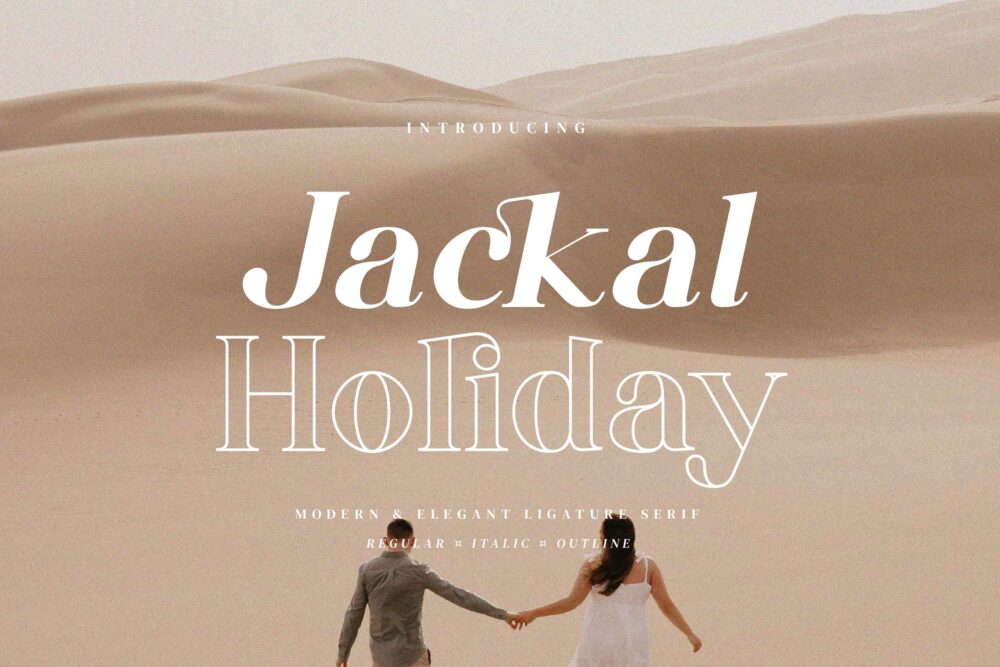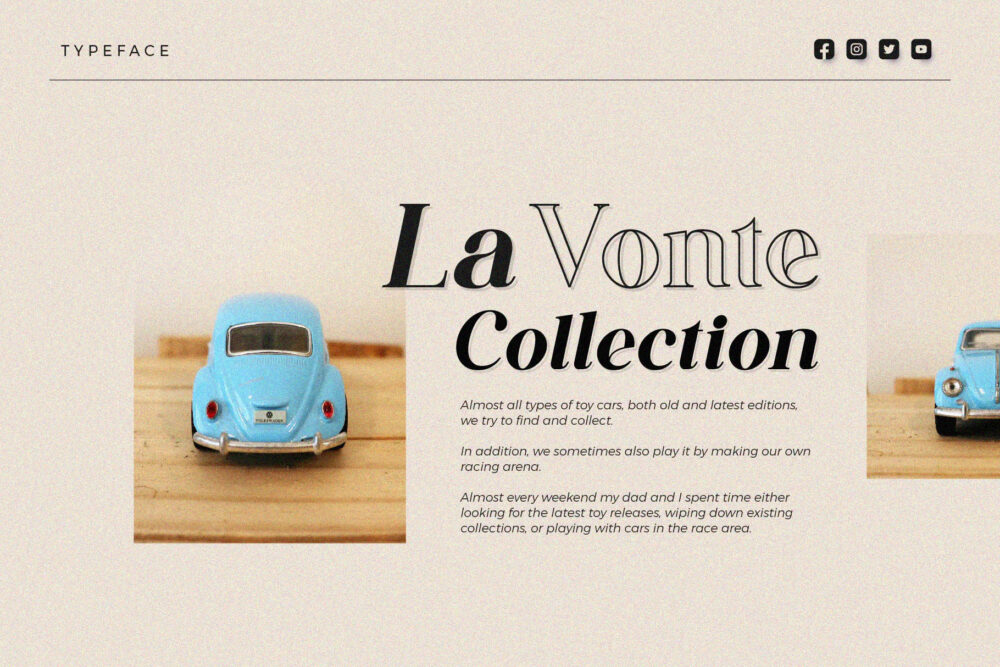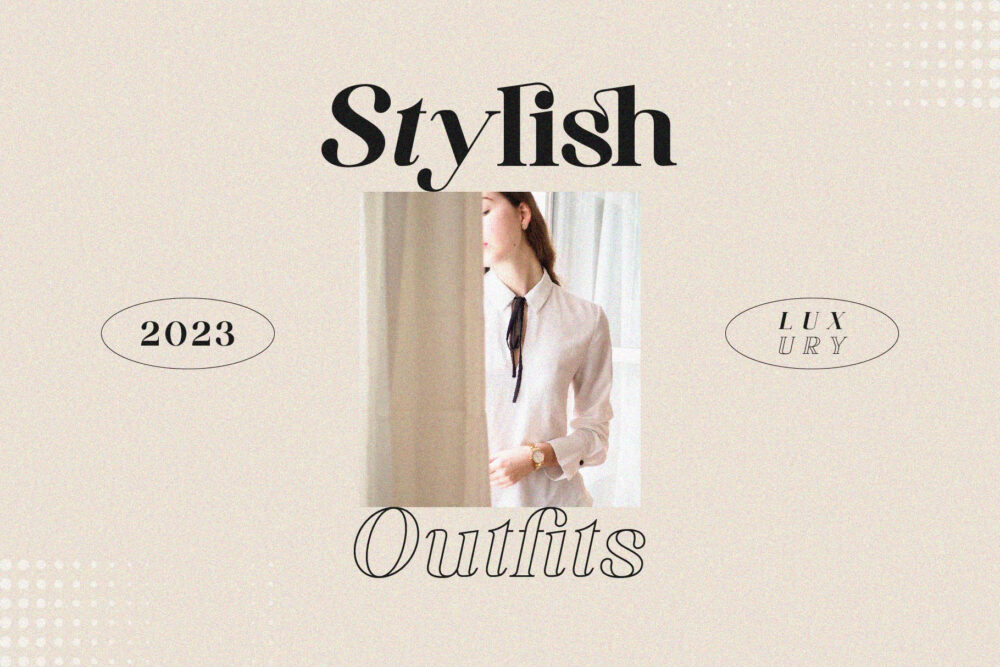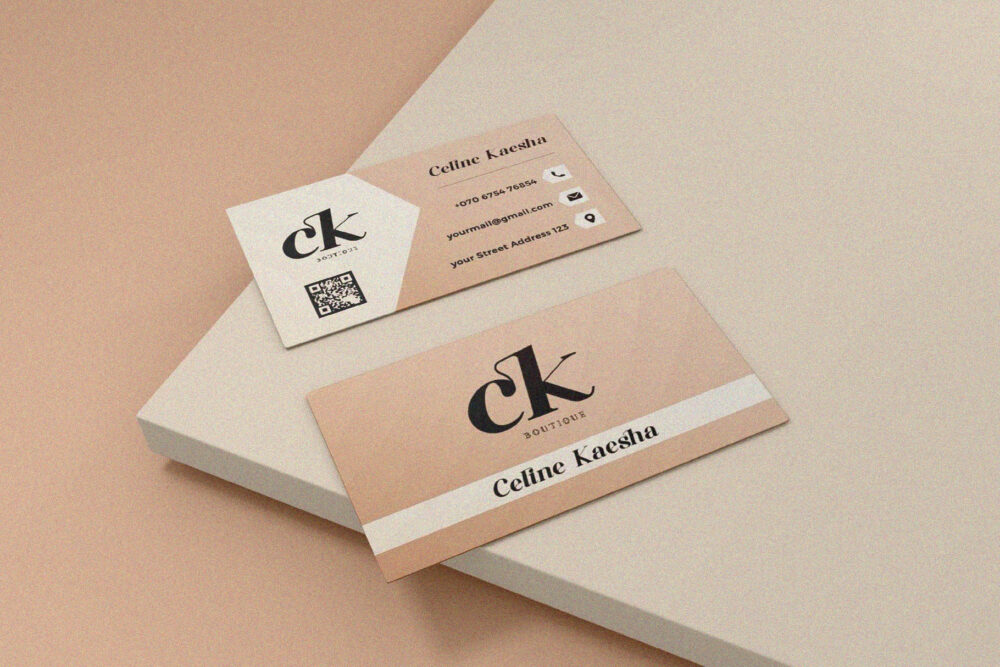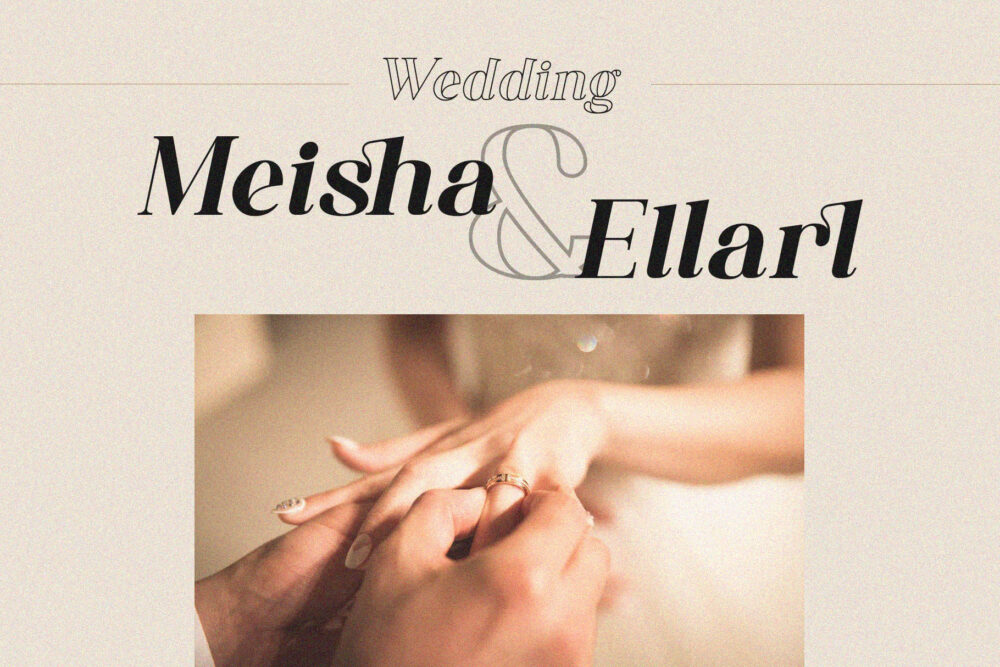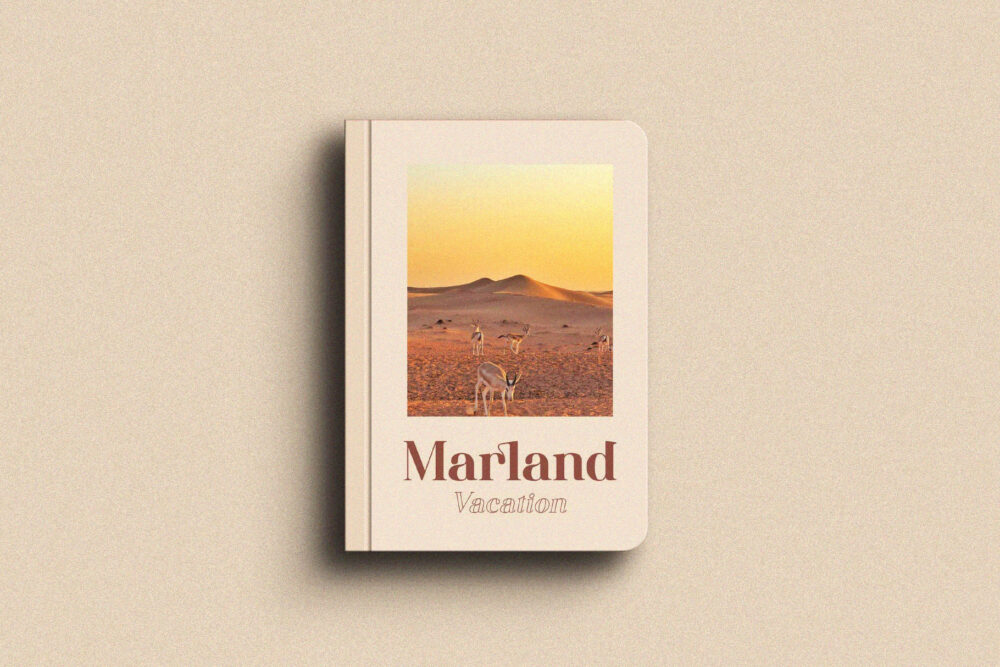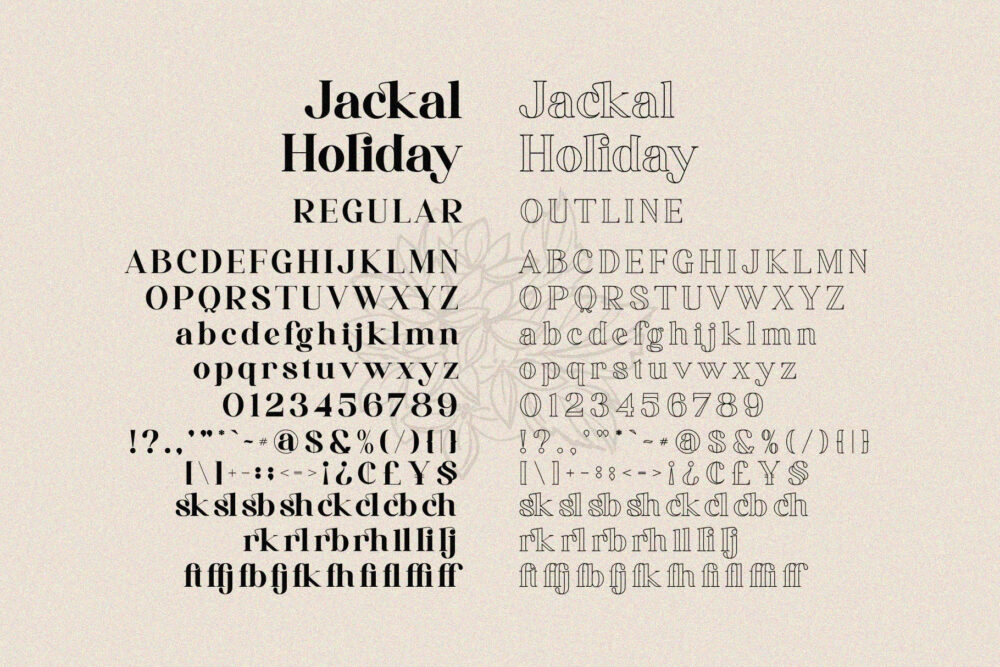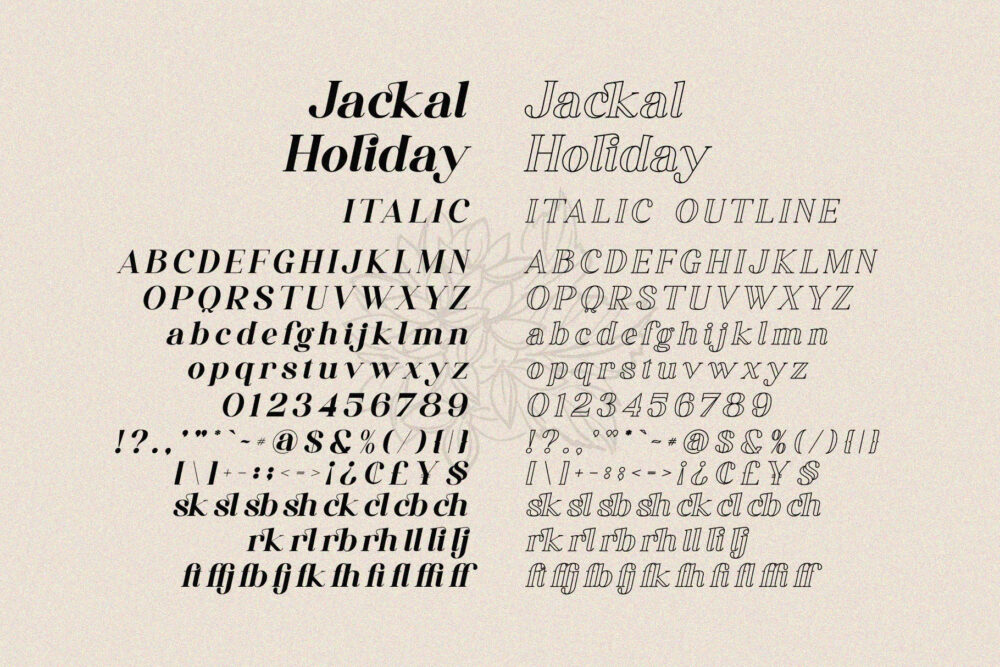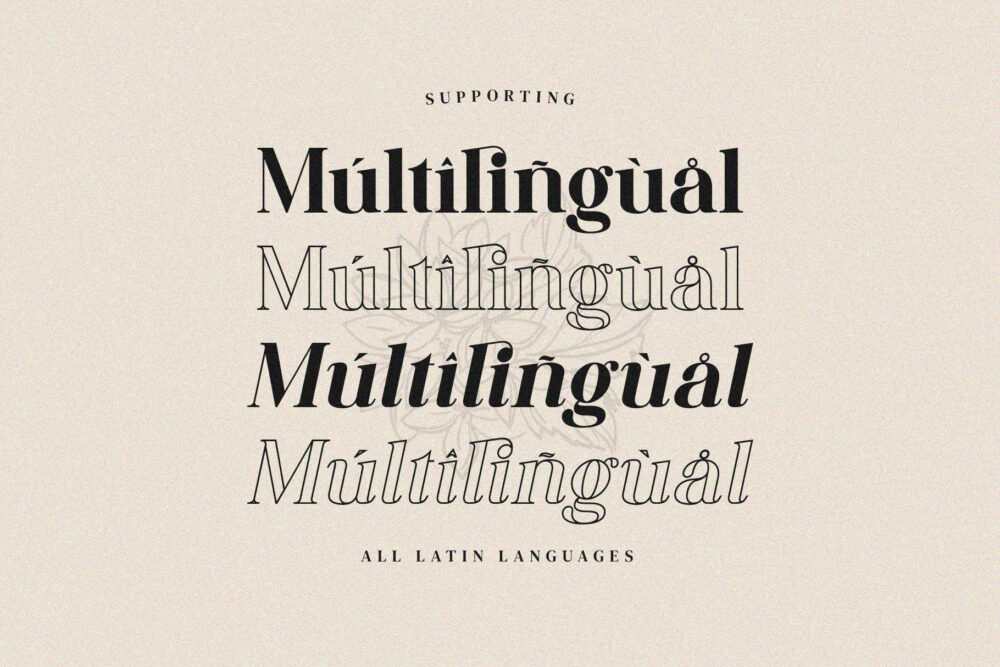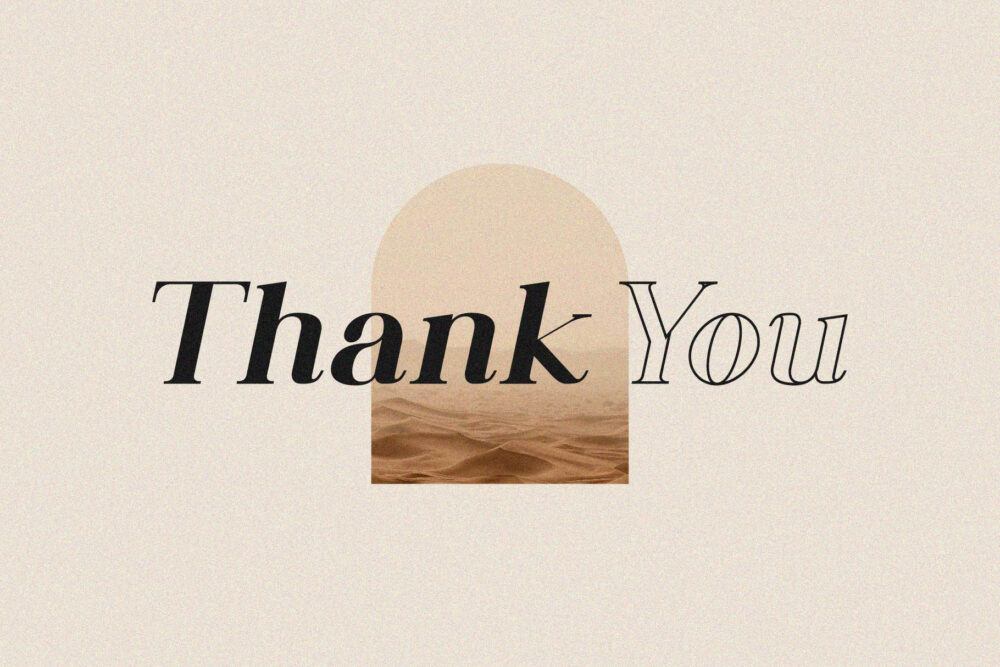
Jackal Holiday Stylish Ligature Family Typeface, inspired by the famous minimalist logo perfect for the purposes of designing templates, brochures, videos, advertising branding, logos and more.